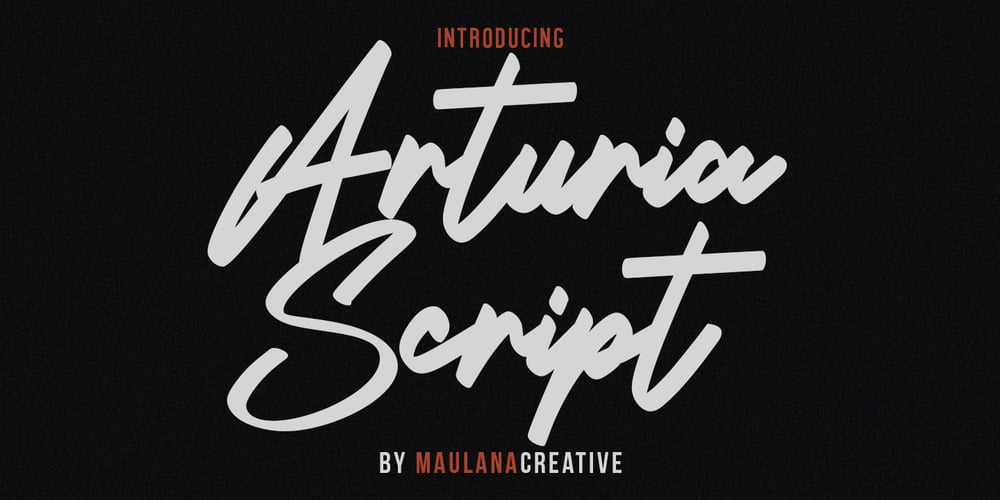
Arturia Font Family was designed by Gilang Maulana and published by Maulana Creative. Arturia contains 1 styles and family package options. Give your designs an authentic handcrafted feel. Arturia Font is perfectly suited to signature, stationery, logo, typography quotes, magazine or book cover, website header, clothing, branding, packaging design and more.MaulanaCreative